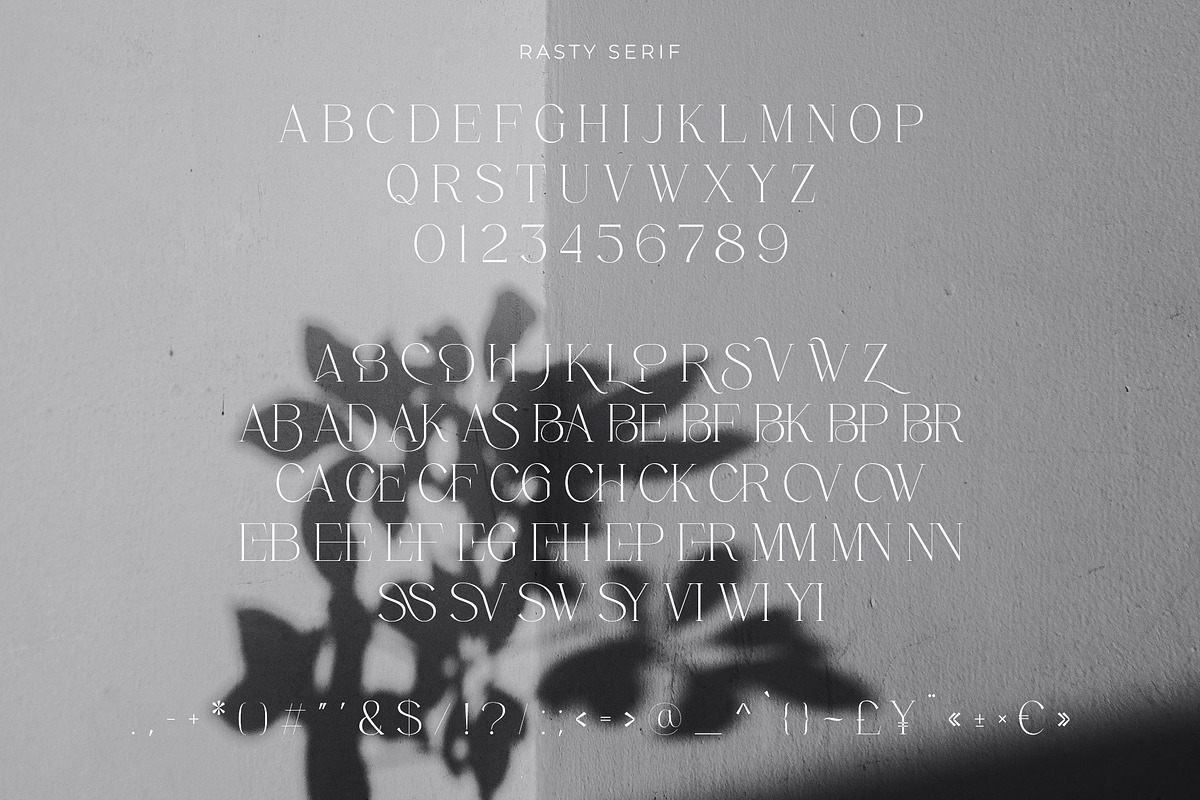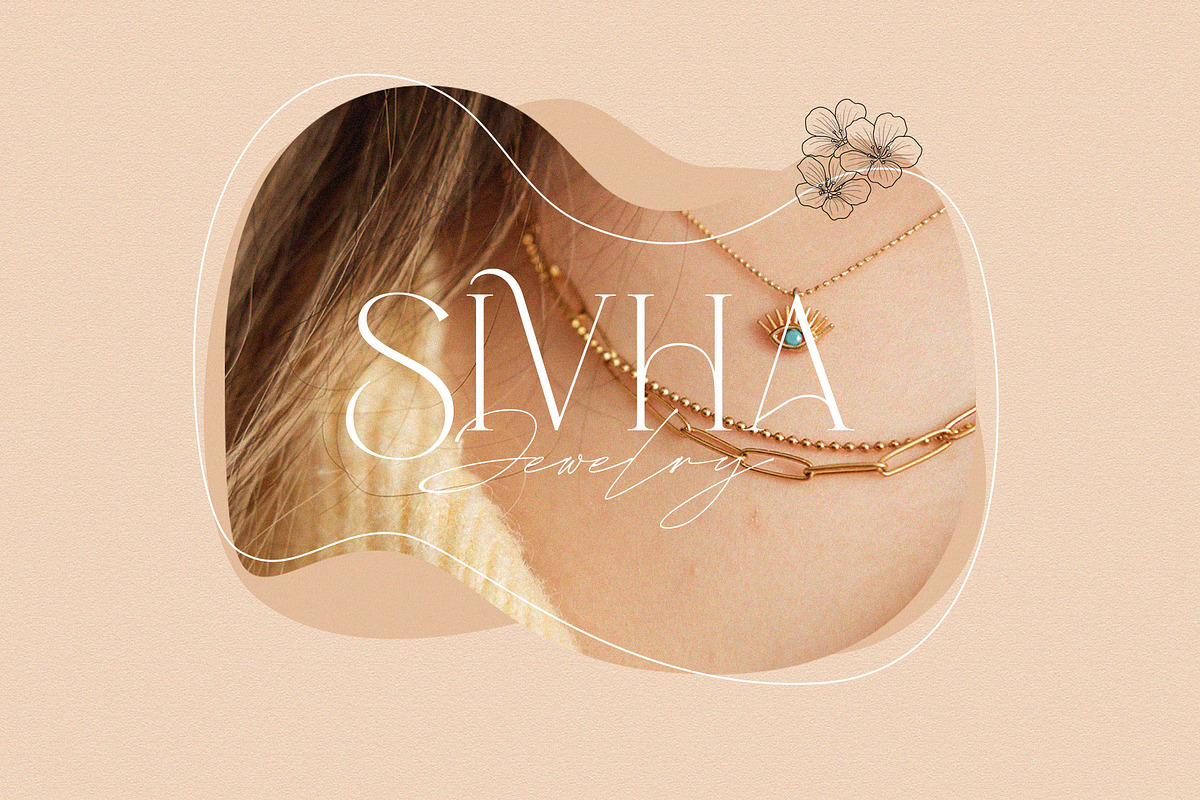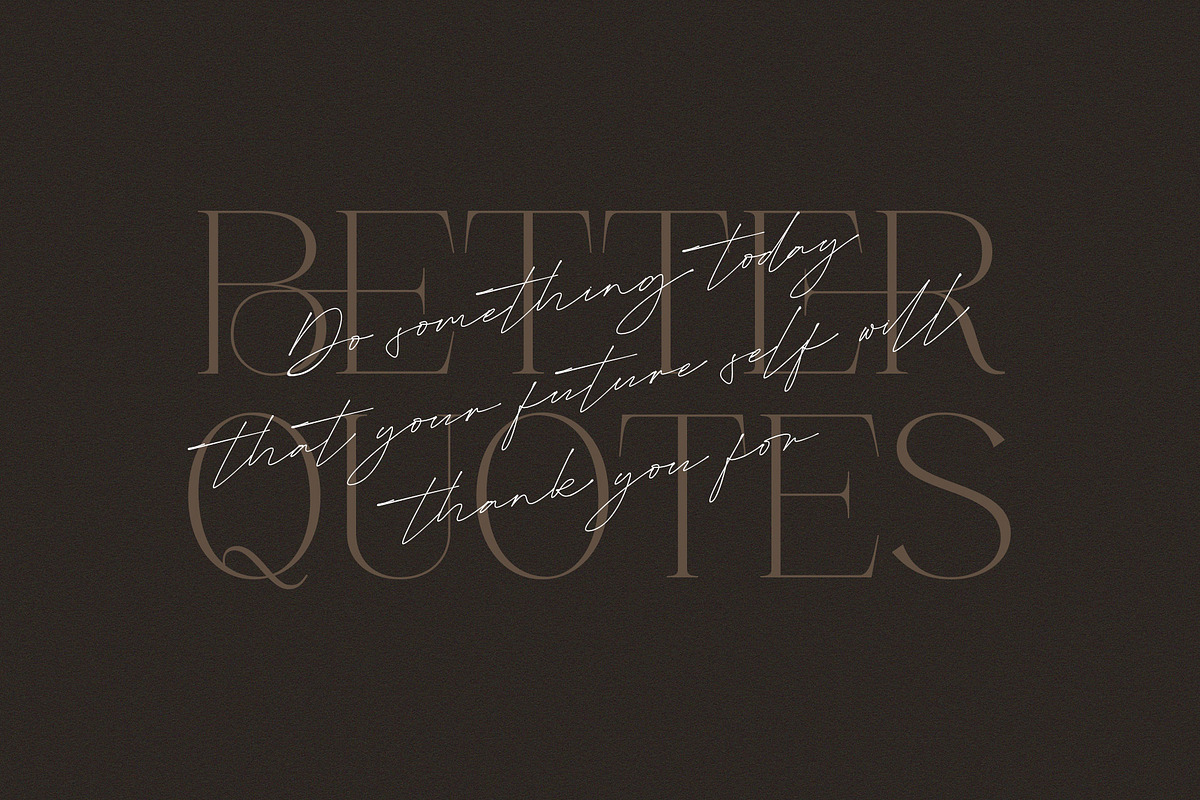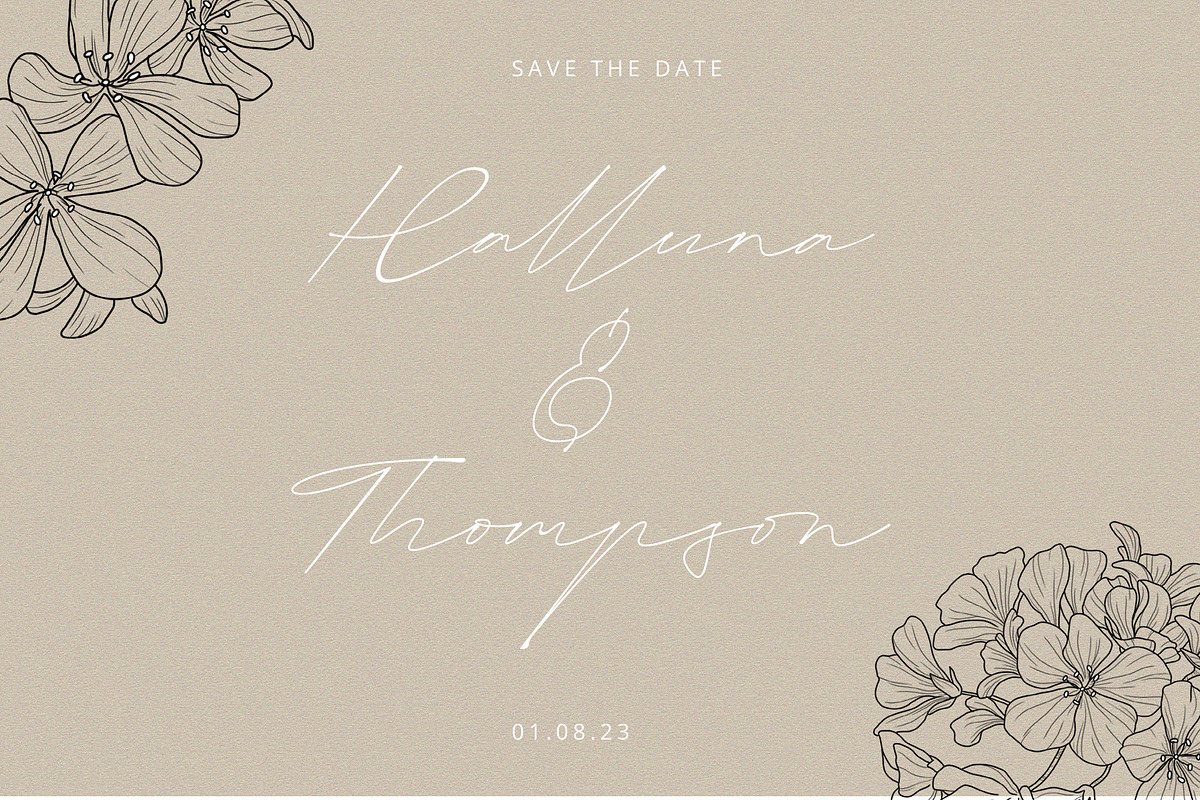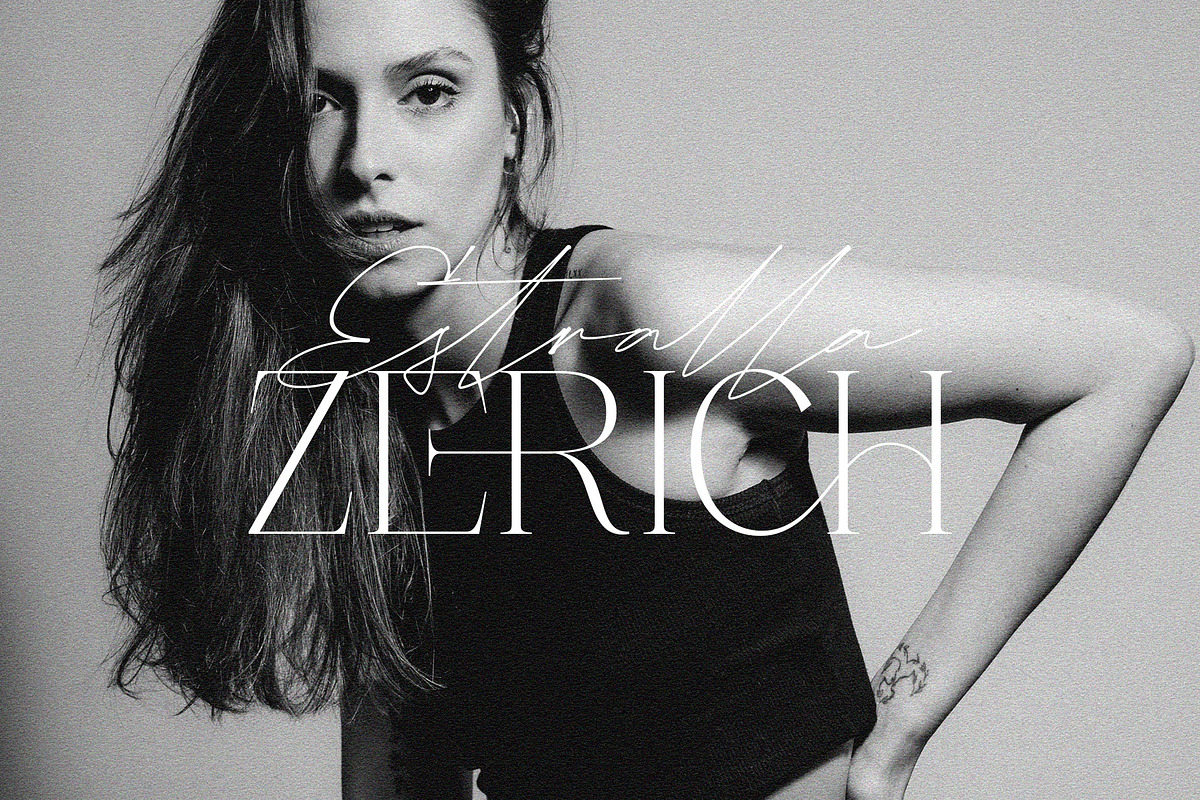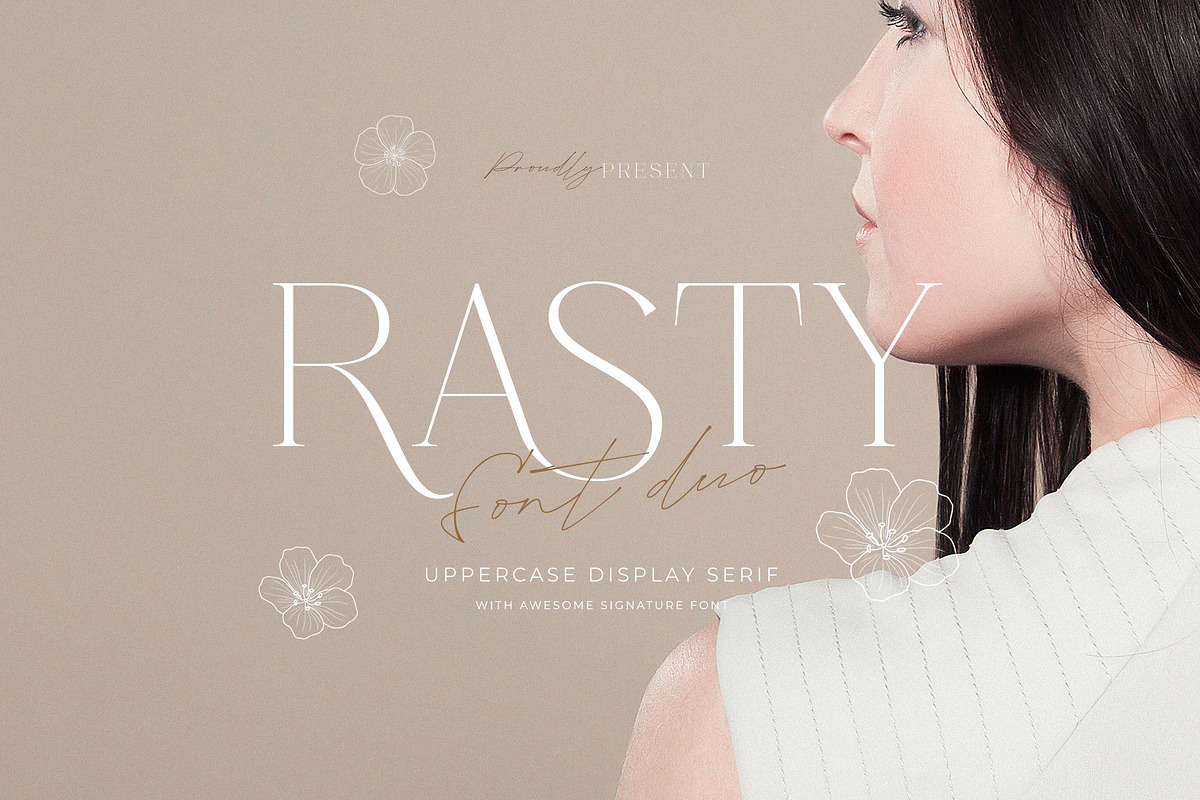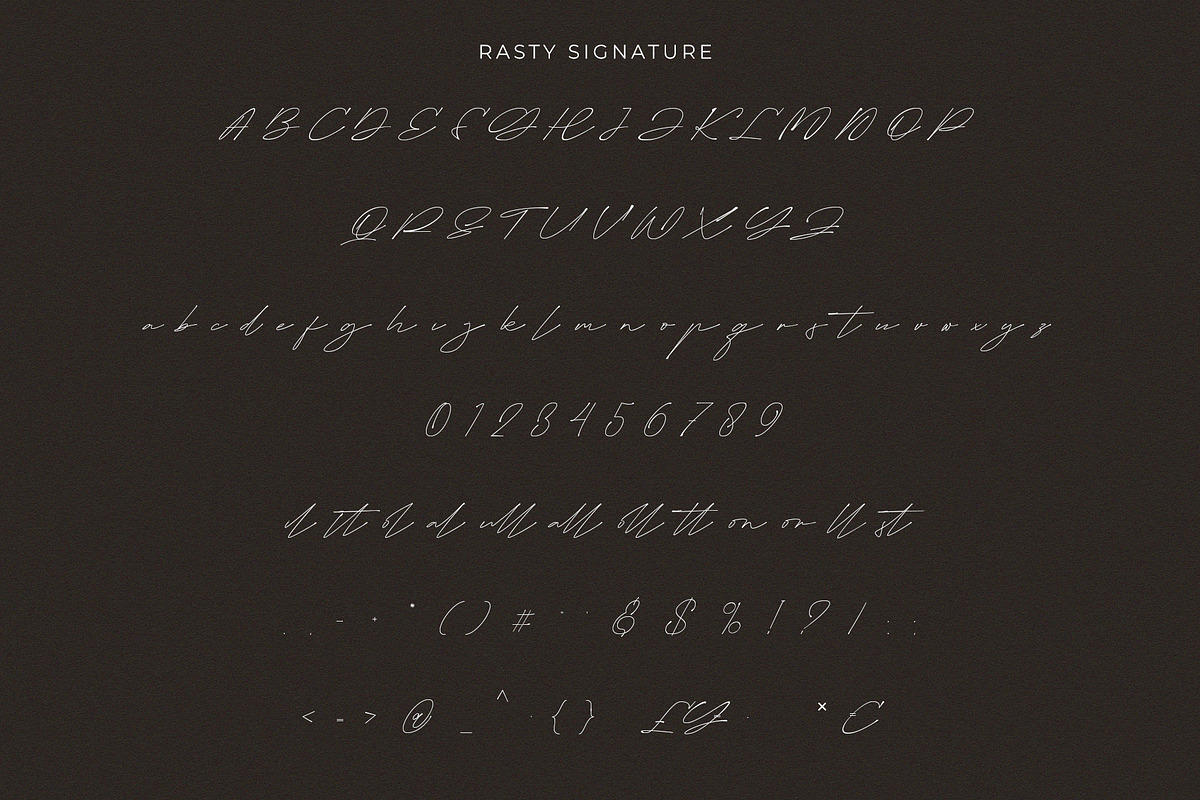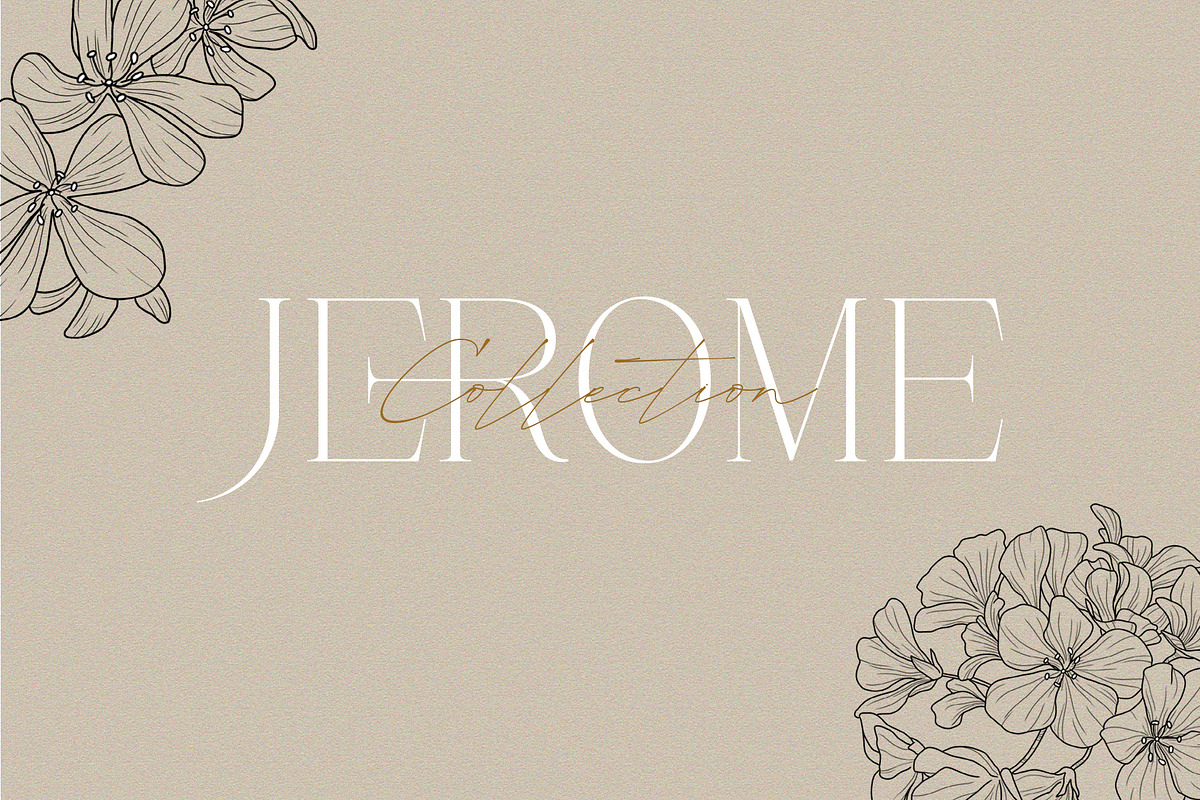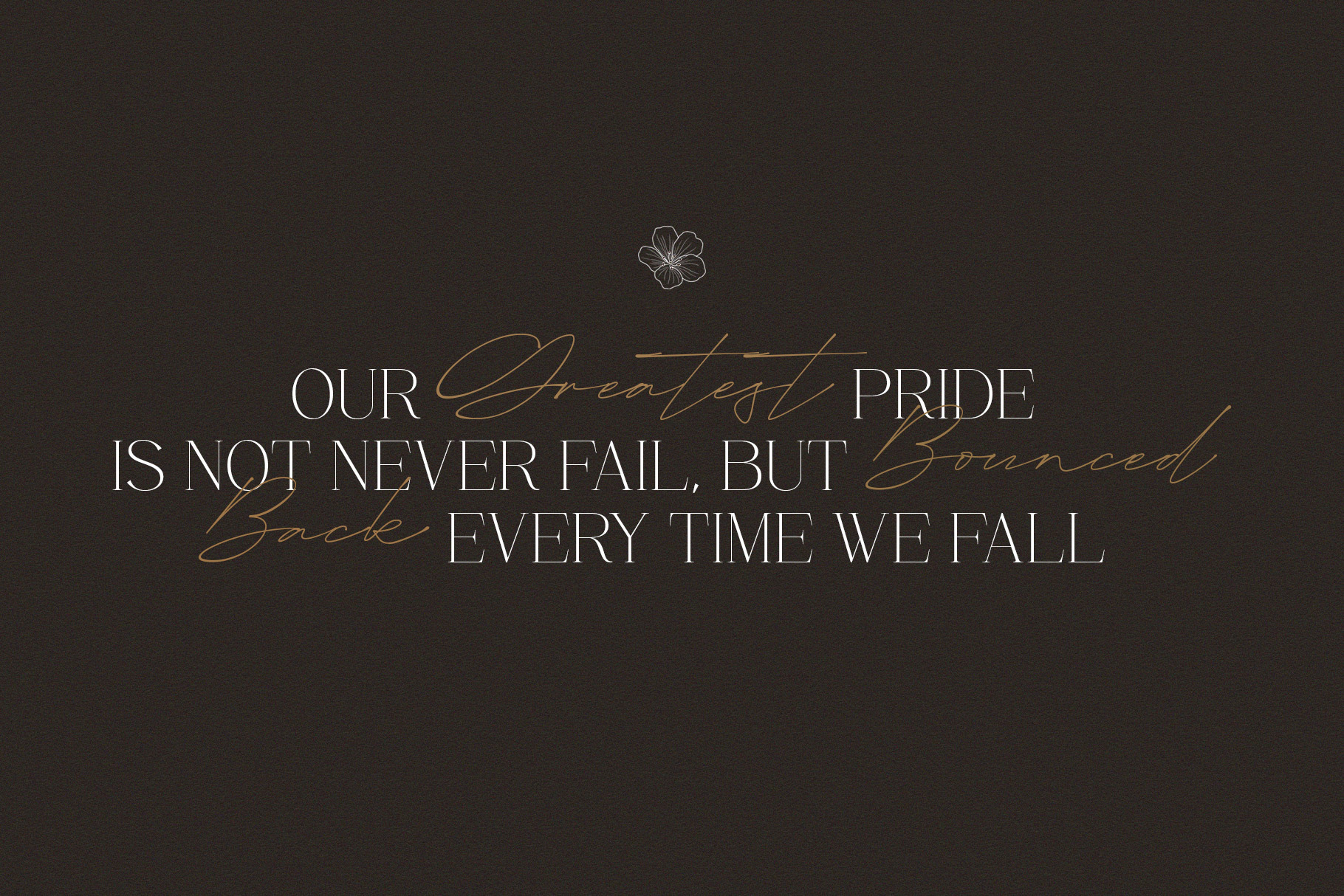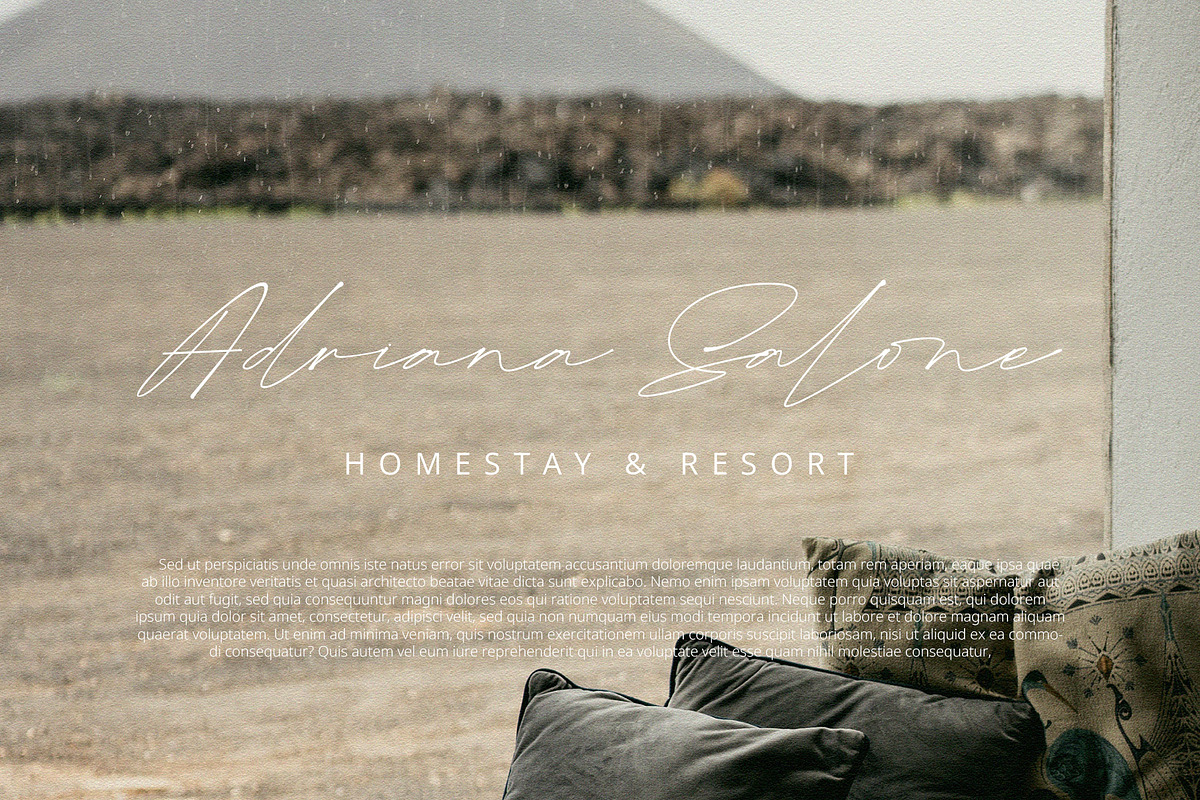
Rasty Font Duo
Hello, This is our newest font called Rasty. They are a duo of fonts that combine to make your project even more elegant and modern. This duo font has its own characteristics but still carries a modern, feminine and professional impression.